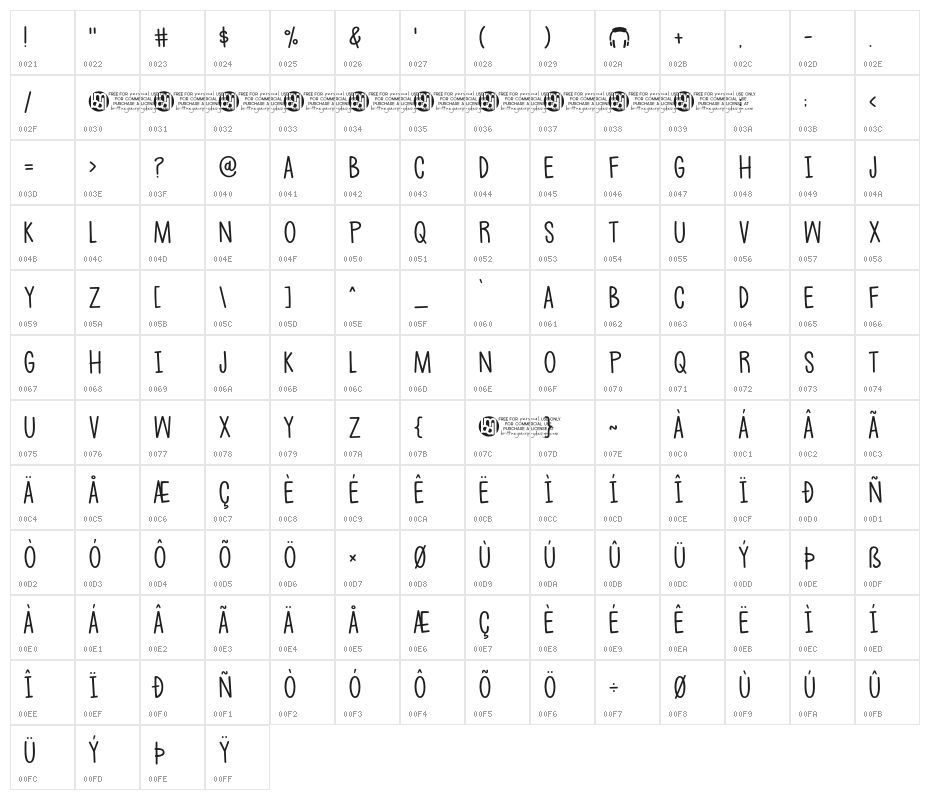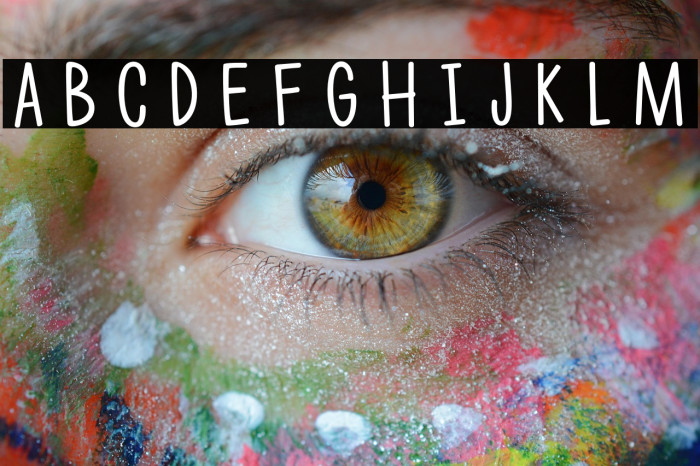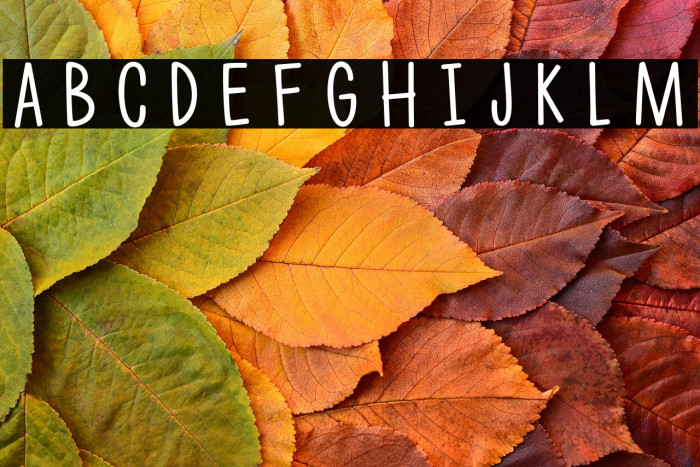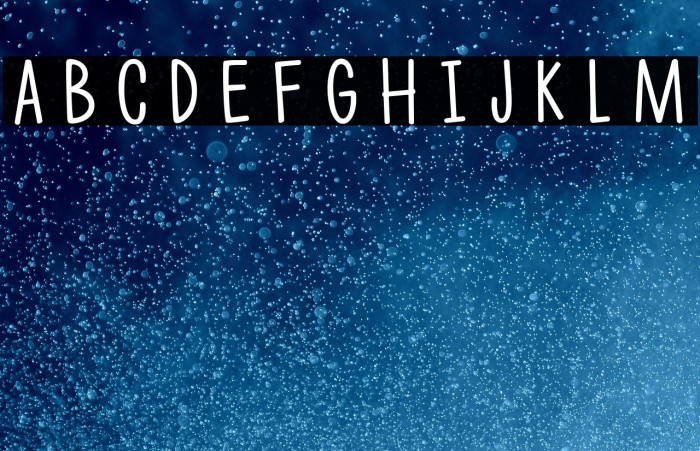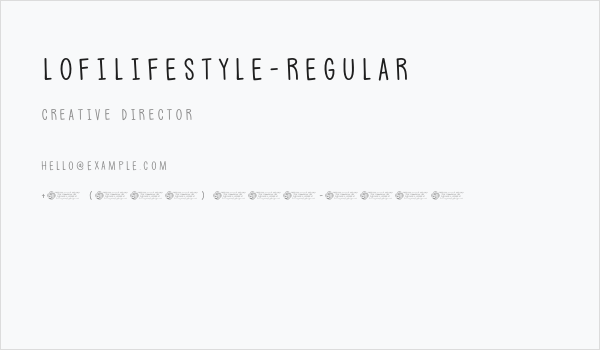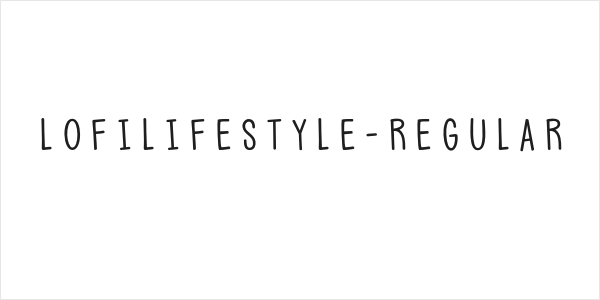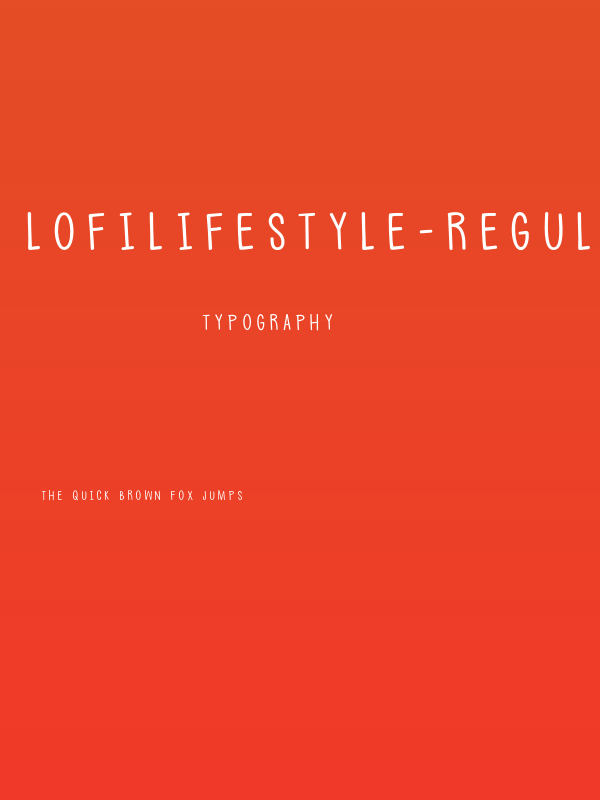
LofiLifestyle-Regular Font
LofiLifestyle-Regular Description
This font features a playful and casual handwritten style, characterized by its slightly uneven strokes and informal appearance. The letters are tall and narrow, giving it a unique and quirky charm. The uppercase and lowercase letters maintain a consistent style, with rounded edges and a slight tilt that adds to its relaxed vibe. The numerals and special characters are designed to match the overall aesthetic, ensuring a cohesive look across all text. This font is perfect for projects that require a personal touch or a laid-back feel.
| Overall Style | Casual, Quirky |
| Use Case | Headlines, Informal text, Personal projects |
| Proposed Projects | Ideal for greeting cards, personal blogs, casual branding, and social media graphics. |